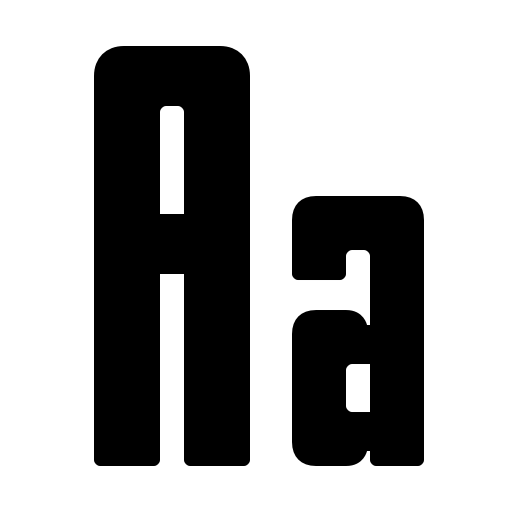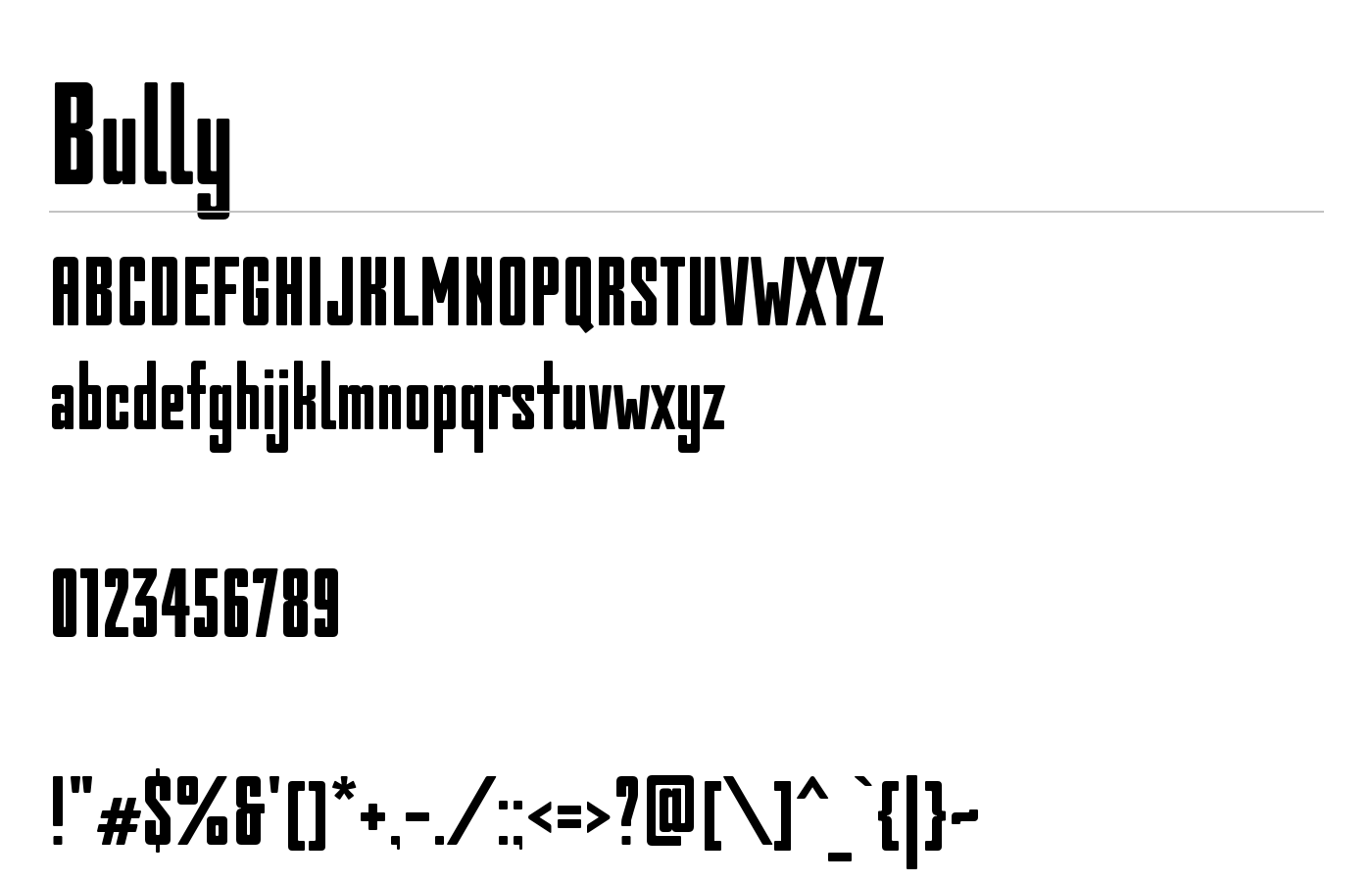
Bully is a bold, condensed sans serif typeface with a strong, industrial feel. Its tall, narrow letterforms with consistent stroke weight create a confident, modern look that works well for impactful headlines, branding, and editorial use where a striking presence is needed. This font’s straightforward style lends itself to designs aiming for a powerful, no-nonsense vibe.
Bully Font
About Bully Font
| Font family | Bully Font |
| Designer | Aigul Gilmutdinova & Jovanny Lemonad |